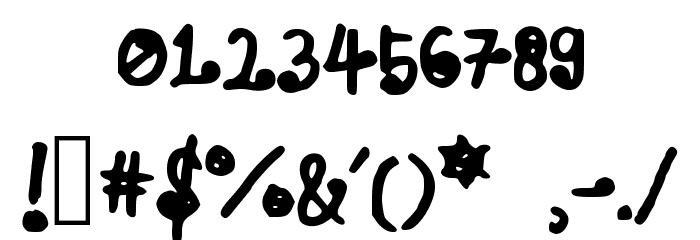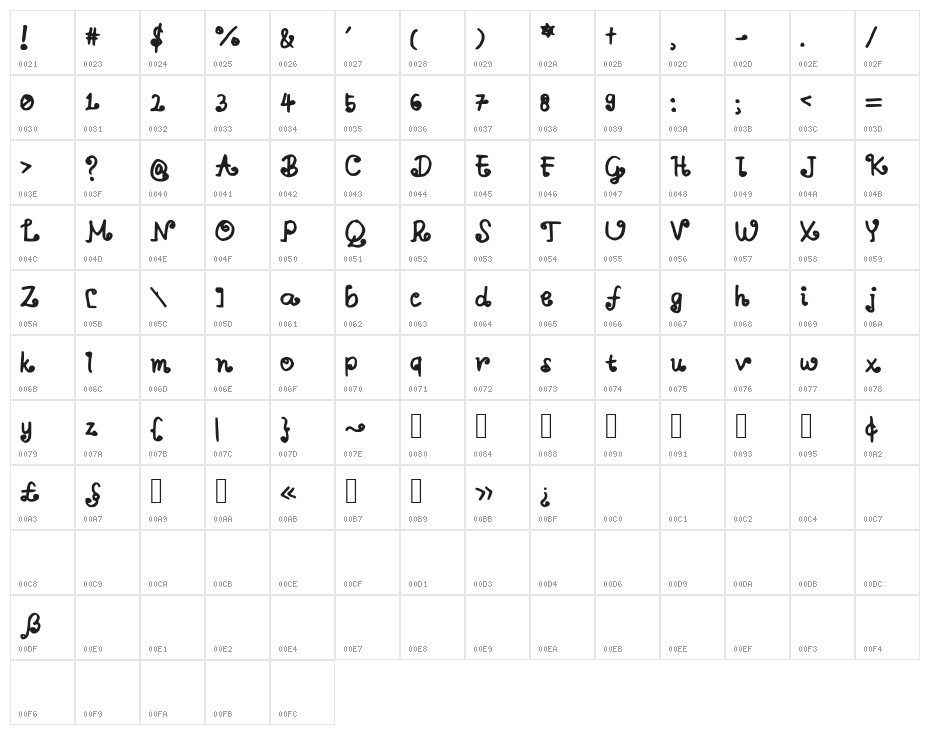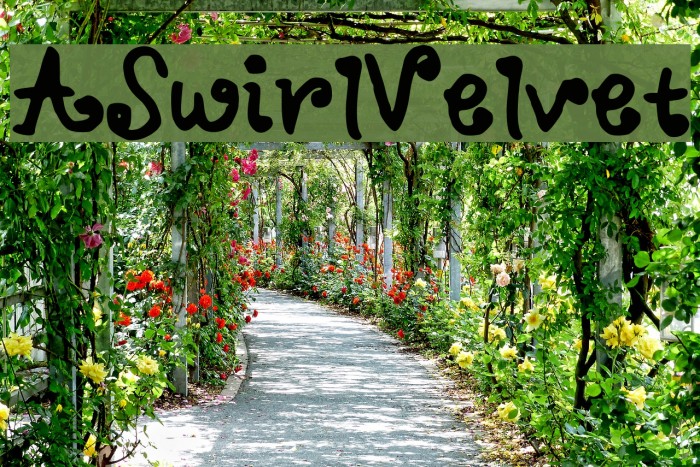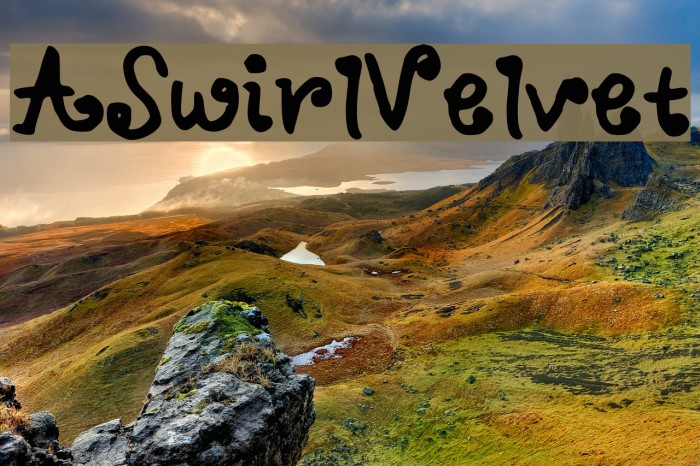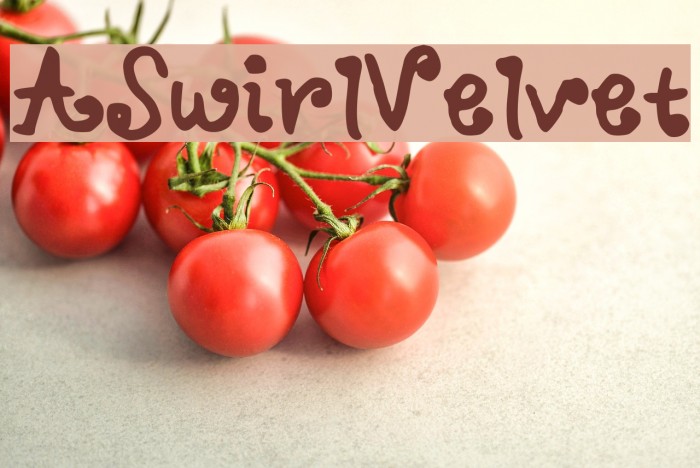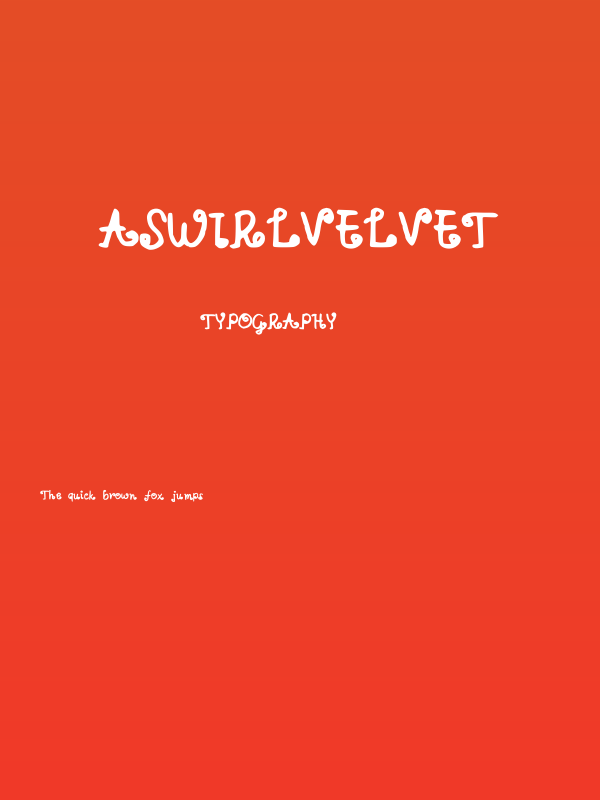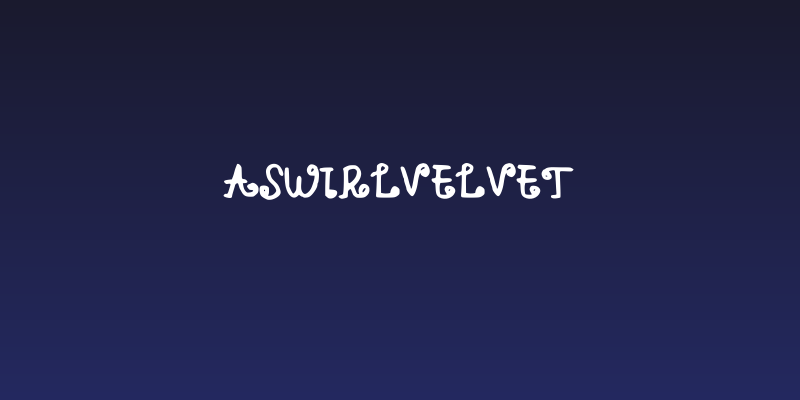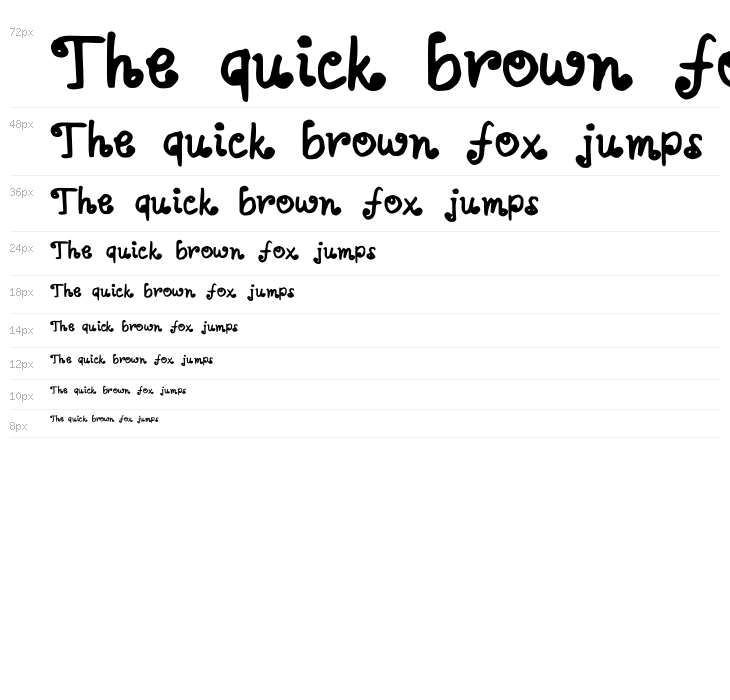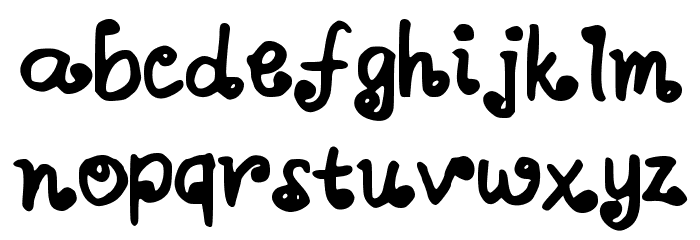
ASwirlVelvet Font
ASwirlVelvet Description
This playful and whimsical font features a unique blend of curls and swirls, creating a lively and dynamic appearance. Each character is adorned with decorative loops and flourishes, giving it a handcrafted feel. The bold strokes and intricate details make it stand out, while maintaining legibility. The font's artistic flair is evident in both uppercase and lowercase letters, as well as in the numerals and special characters. Its distinctive style is perfect for adding a touch of creativity and fun to any design project.